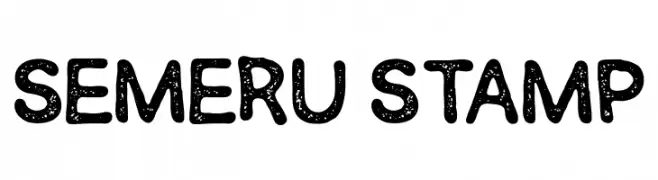
A whimsical, handwritten font with tall, narrow letters and a playful style.
A bold, hand-drawn font with a textured, expressive style.
A steampunk-inspired decorative font with bold, angular letters encased in gear-like circles.
A rugged, hand-drawn font with a natural, adventurous style.
A bold, dynamic brush-style font with expressive strokes.
An ornate and intricate monogram font with elaborate, decorative designs.
A playful, handwritten font with a casual and informal style.
A playful, hand-drawn font with tall, narrow letters and a whimsical style.
A playful, casual handwritten font with uneven strokes and organic flow.
Intricate and ornate monograms with a vintage, decorative style.
A bold, distressed stencil font with a vintage, industrial feel.
A classic serif typeface with high contrast and elegant, elongated forms.
A bold, modern font with thick strokes and a strong presence.
A decorative and vintage-style font with ornate details.
A dynamic, cursive script font with a personal and artistic touch.
A bold, futuristic font with geometric and sleek design elements.
A bold serif font with strong strokes and classic elegance.
A playful, handwritten font with rounded, irregular characters.
A bold, gothic-style font with a blackletter influence.